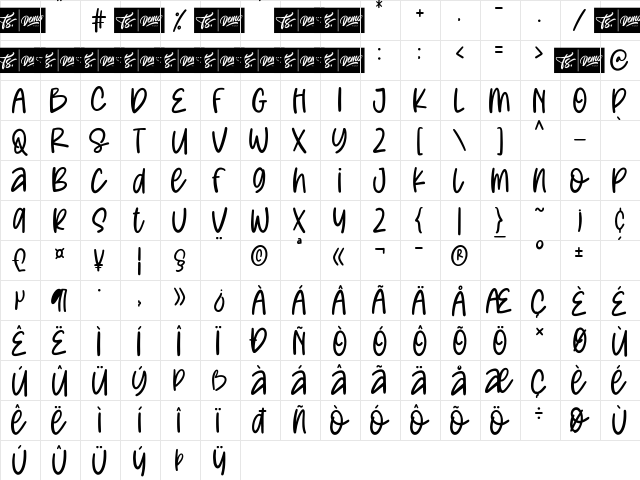
Joyful Unicorn Regular
| Designer | Fahrul Arjianto |
Design Context for Joyful Unicorn Typeface
Joyful Unicorn is a composed and adaptable typeface that performs quietly and consistently across a wide range of design contexts.